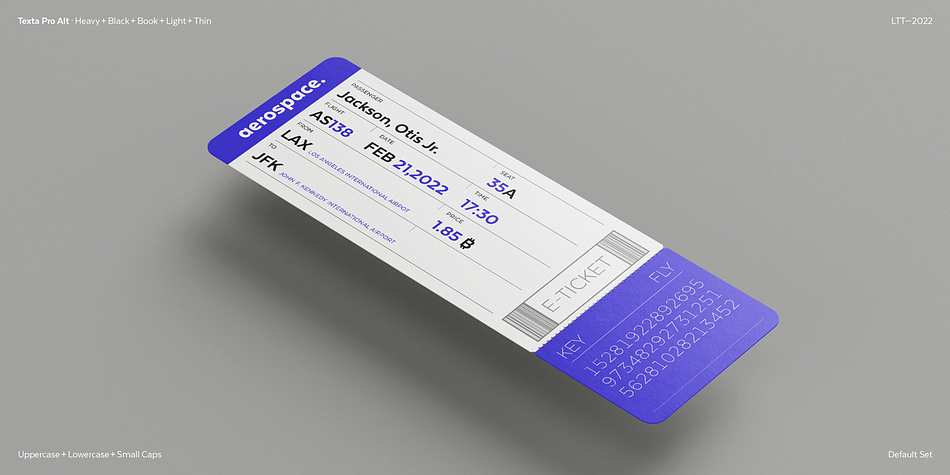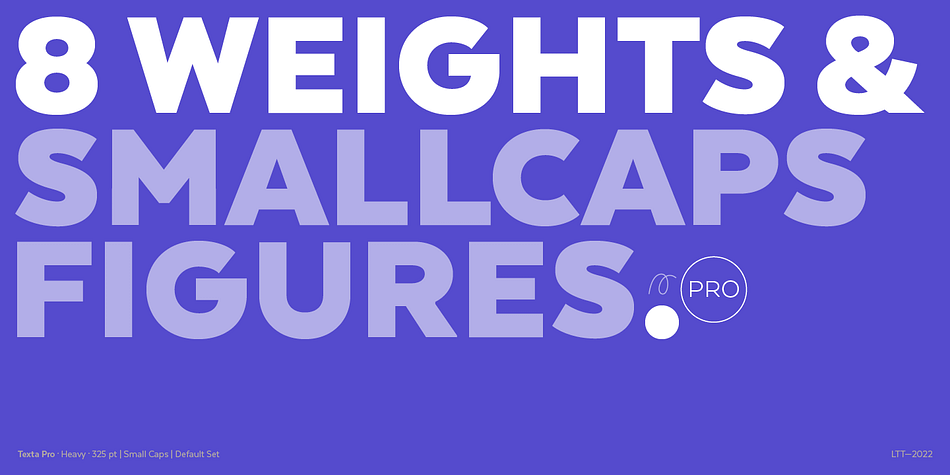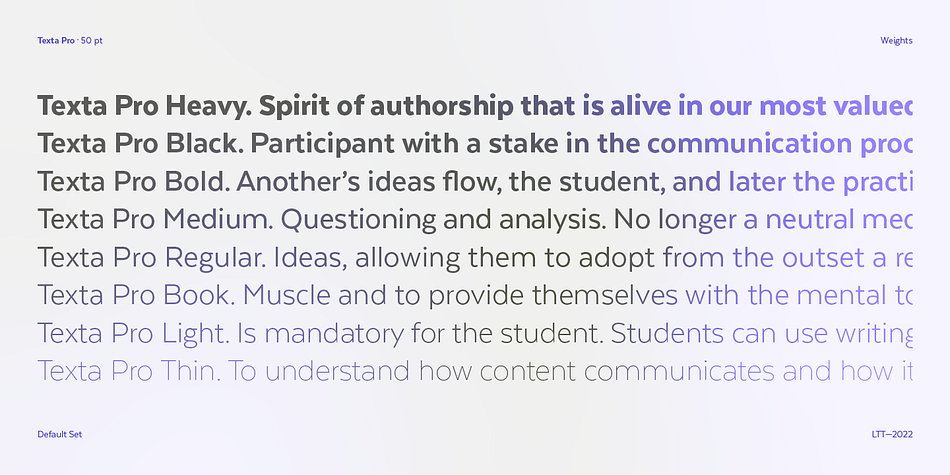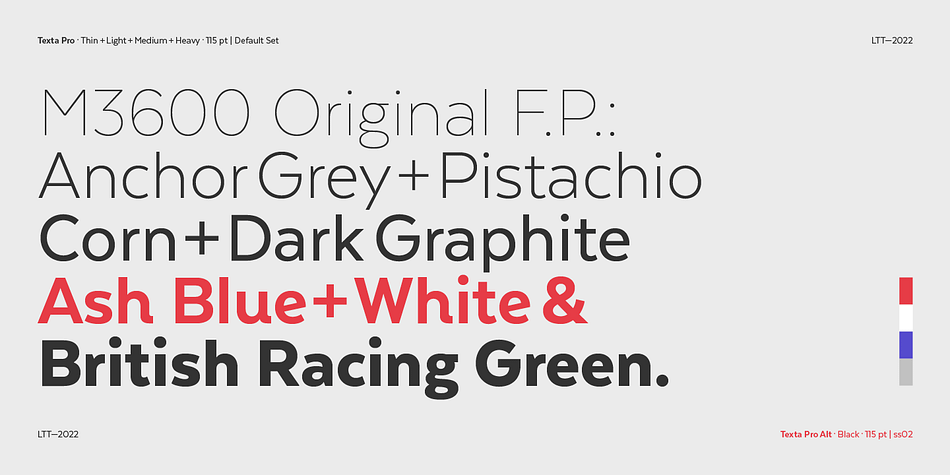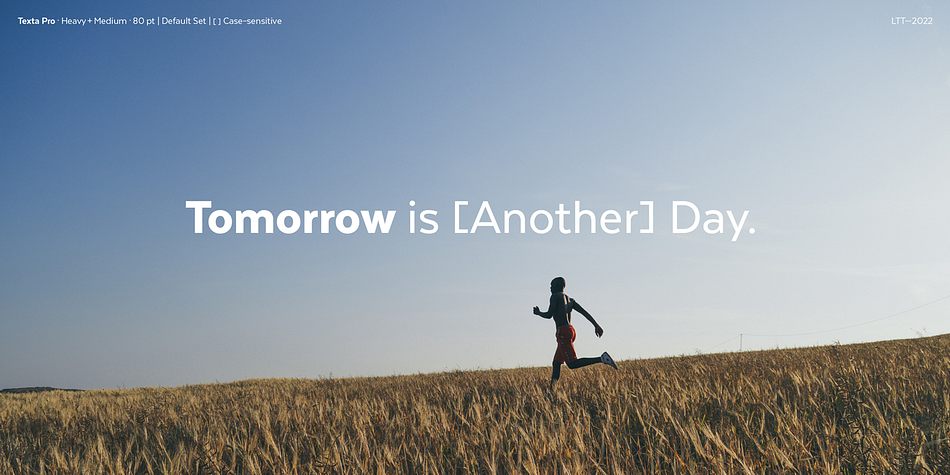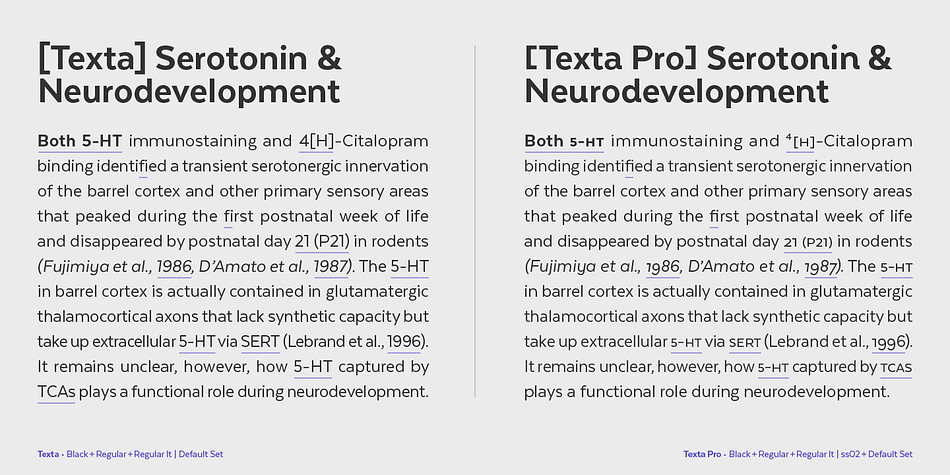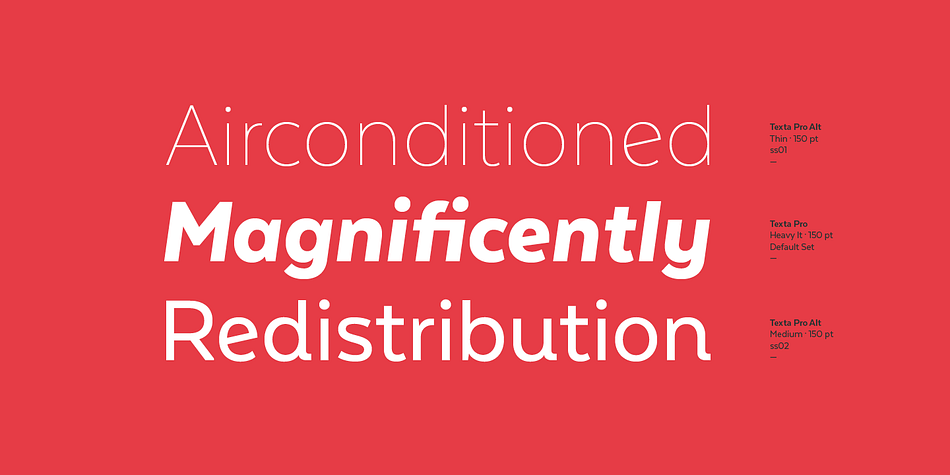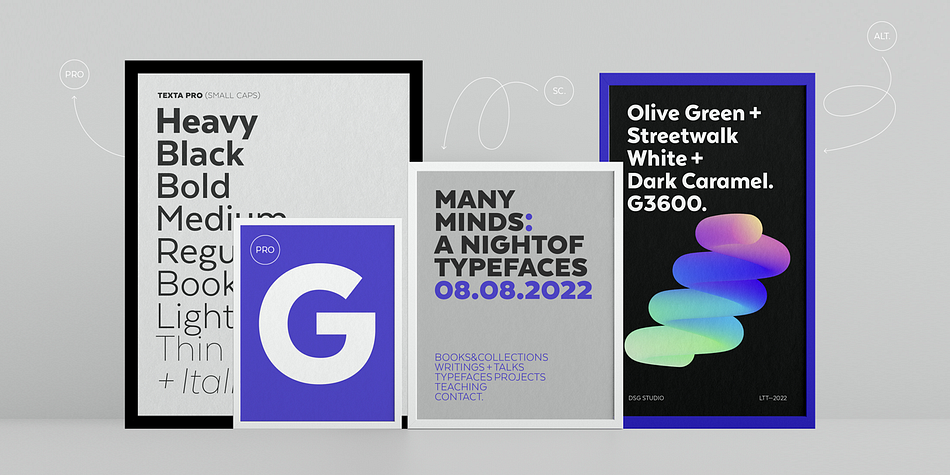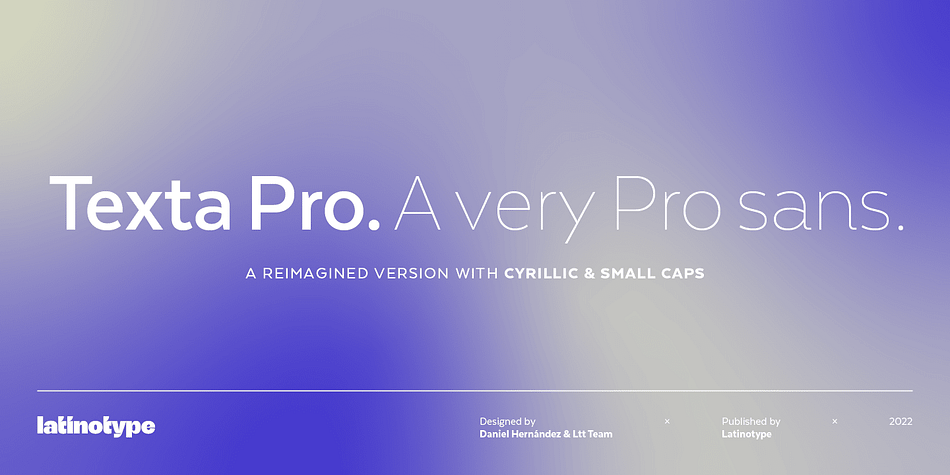
Texta Pro
Designed by Daniel Hernández, Texta Pro is a sans serif font family. This typeface has thirty-two styles and was published by Latinotype.
Because all good things can get better. Texta was born in 2014, a collaborative project of the study of humanist models from Edward Johnston to Adrian Frutiger.  Texta Pro is a contemporary and rational sans, almost invisible, but not quite.  It is a workhorse for any type of project.
New design of symbols such as Section, Partialdiff, Dagger, approxequal, among others. Expansion of monetary signs (Bitcoin, Peso, Franc, etc.) Basic ligatures fi, fl. Includes Cyrillic.